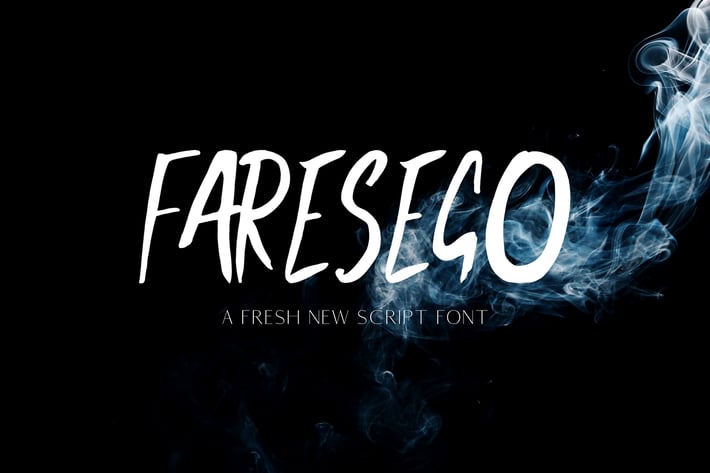
Faresego Script Typeface
Faresego is a modern and hand-brushed script typeface which will add charm into your designs. It contains uppercase and lowercase alphabet, numbers, punctuation, symbols with multilingual support. This font will pair beautifully with signature, sans serif or handwriting style. Faresego can be used for headlines, posters, branding, packaging, presentations, logo, quotes, titles, magazines headings, web layouts, advertising, invitations, packaging design, books, and nearly any creative design.
Faresego Font Features:
- Uppercase Letters
- Lowercase Letters
- Non English Characters ( Latin Supplement + Latin Extended A)
- ABCDEFGHIJKLMNOPQRSTUVWXYZ
- abcdefghijklmnopqrstuvwxyz
- 0123456789
- !"#$€%&'()*+,-./:;?@[\]^_`{|}~ ¡¢£¥©®¿
- ÀÁÂÃÄÅÈÉÊËÌÍÎÏÑÒÓÔÕÖÙÚÛÜÝàáâãäåèé
- êëìíîïñòóôõöùúûüÿ